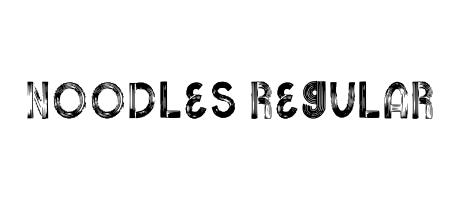
Noodles
By Kahlia Bayani
Noodles Regular is a display typeface with a unique, textured aesthetic. Its bold, uppercase letters feature a subtly distressed or etched look, giving each character a slightly worn, almost hand-carved feel. The overall effect is gritty yet legible, perfect for adding a touch of vintage or industrial flair.